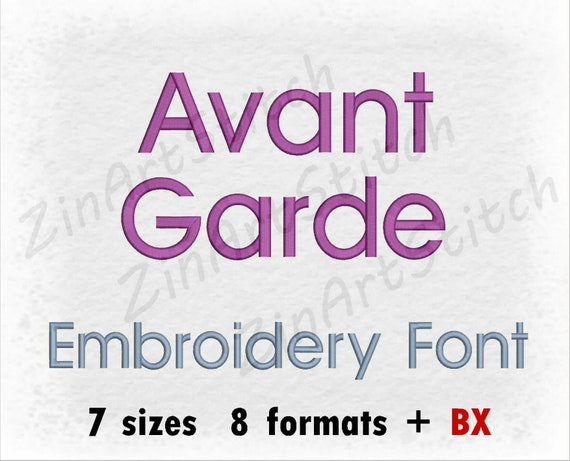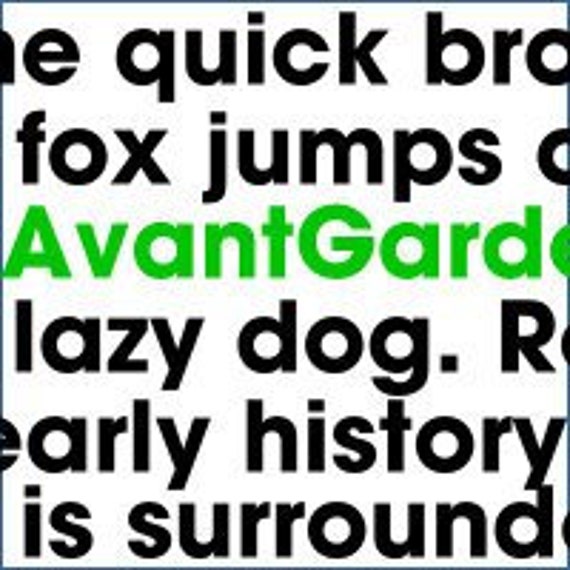
Шрифт avantgarde
ITC Avant Garde Gothic (4 Font Styles) Fonts For Web & Desktop On.
Avant Garde font with the Thin style belongs to the AvantGarde family. Examples of the Avant Garde Thin font can be found on the font site AZFonts. Font.
ITC Avant Garde Gothic – Font Of The Week
27 янв. 2021 г. Avantgarde FontIt is a sans serif font and best choice to use in bold headings. Now about it more and get it here. Avantgrade Font.
Avant Garde Font is the bold gothic typeface and this is listed inside both the google and adobe fonts in the zip file format.
ITC Avant Garde Gothic® Font Family | Fonts.Com
29 нояб. 2023 г. Avantgarde Font free download and font details. Avantgarde Font is powerful sans serif font family made to be a perfect choice for titles.
My selection consists of 5 classic typefaces: Neue Haas Grotesk, ITC Avant Garde Gothic, Futura PT, Bodoni, and Le Monde Livre. The first 4 typefaces were.
Avant Garde Embroidery Design · Creative Fabrica
Discover The Artistry Of Herb Lubalin'S Avant Garde Gothic
ITC Avant Garde Gothic Font Family
Residents Mush-Room LP [Vinyl New] Sealed Record Album + Download.
10 февр. 2020 г. font free Cyrillic Latin accident ussr avantgarde constructivism Absurd download. More Like This.
16 мар. 2020 г. Download. About the Product. Avantgarde is a powerful sans serif font family made to be a perfect choice for titles and headlines but it's.